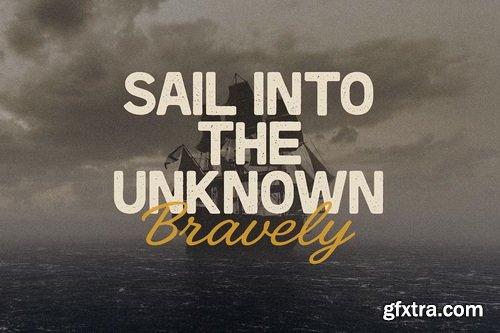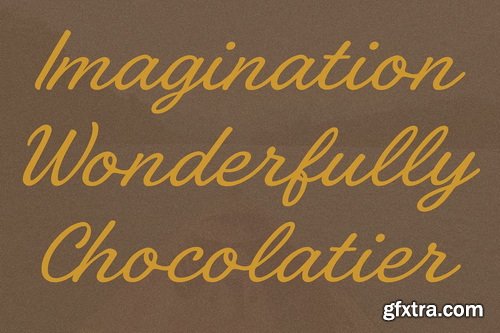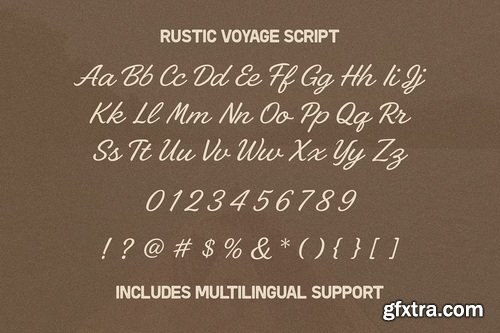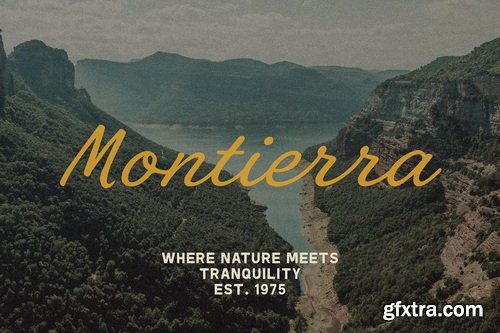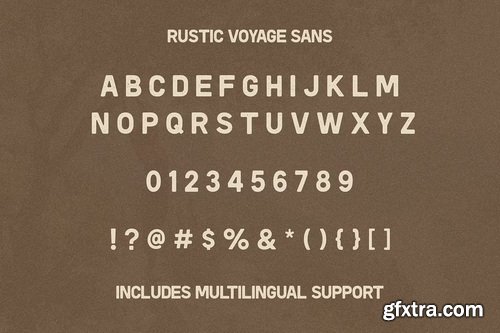
- Rustic Voyage is a versatile font duo that combines a bold textured sans serif with a warm and elegant script. Inspired by classic adventures, retro travel posters, and artisan café aesthetics, this typeface brings a sense of nostalgia, adventure, and timeless charm to any design project.